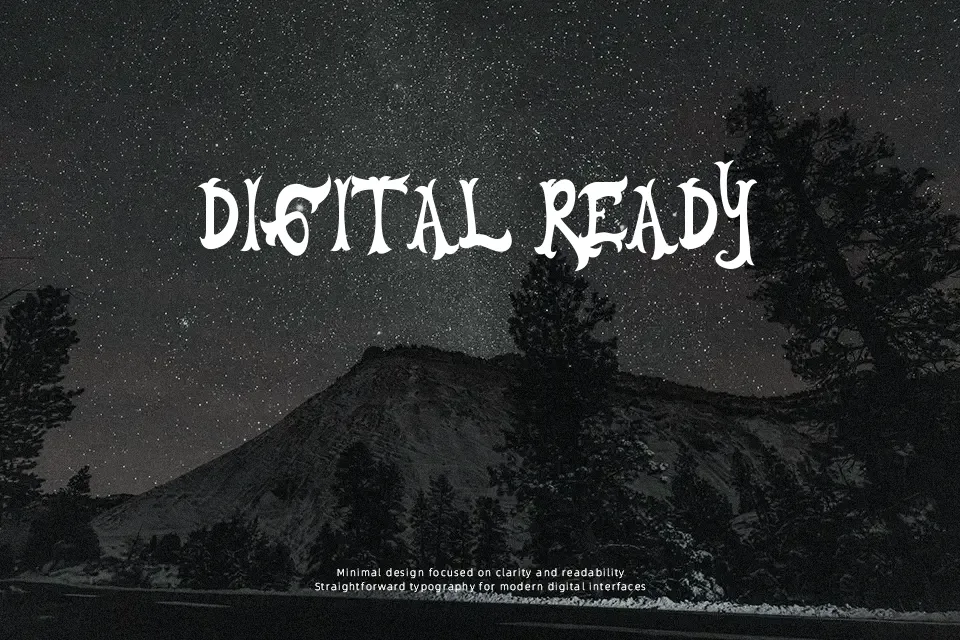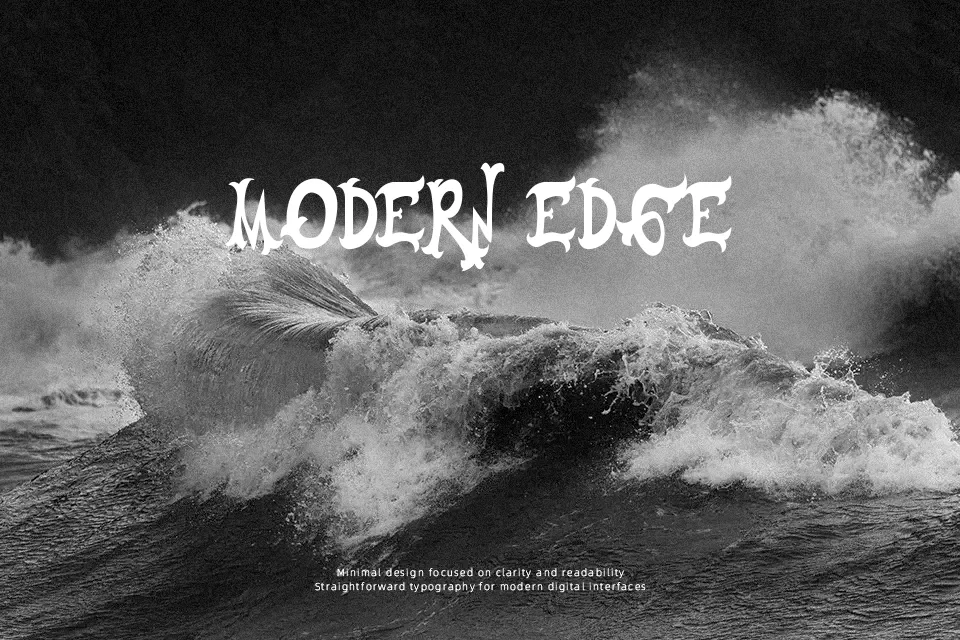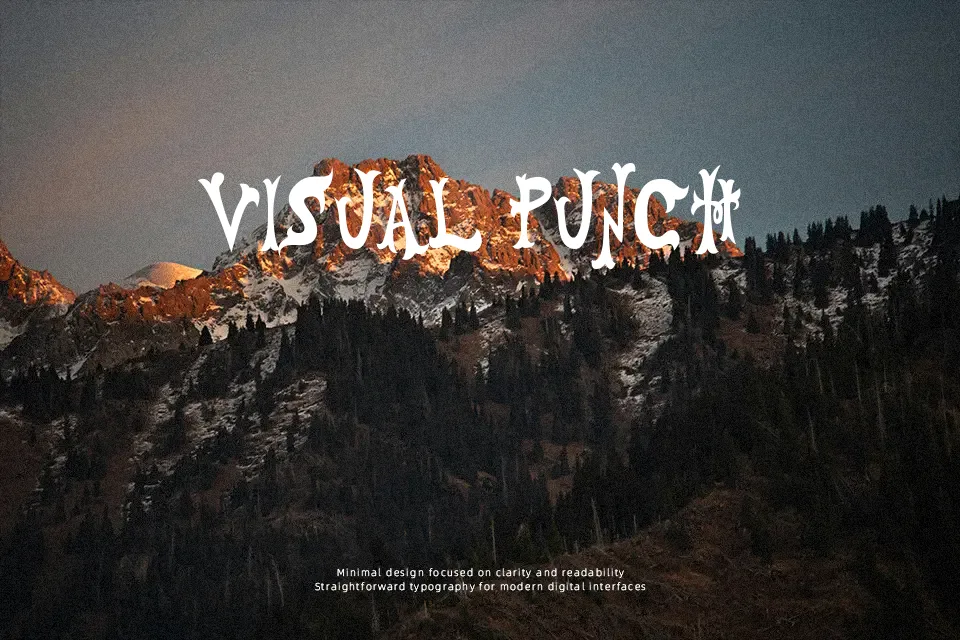
Vaquerojado Font
Vaquerojado Font delivers a rugged display aesthetic built on substantial slab serifs, pronounced central spurs, and sturdy vertical stems. The letterforms exhibit wide proportions and generous spacing that preserve distinctive shapes in large headlines and thematic signage. While the heavy weight commands attention across promotional banners and western packaging, the elaborate spurs and blocky details become less effective at smaller sizes where counter spaces clog. Extended paragraphs are impractical due to the rigid geometry and ornamental features, making the typeface far better suited for brief titles and punchy focal text.
Best For: western themed event posters, craft brewery labels, rustic steakhouse signage, vintage apparel graphics
Not Ideal For: continuous body text, mobile interface elements, formal business documents, compact table captions
Perfect for headline, logo, and packaging, with a bold and decorative style.